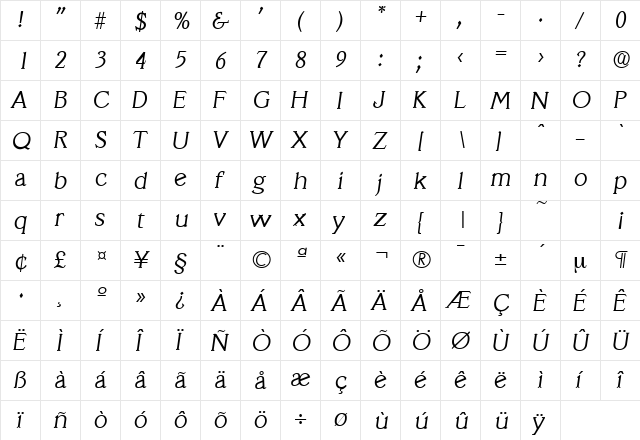
Veracruz-Serial-Light RegularItalic Font Preview
Design Context for Veracruz-Serial-Light Typeface
Veracruz-Serial-Light offers clean, dependable letterforms without strong stylistic allegiance, making it a practical choice for designers who need flexibility. The dynamic lean of this cut emphasises speed and emphasis in any layout. Its slender proportions lend an understated elegance to any composition.
Pro Tip: Use Veracruz-Serial-Light for emphasis, pull quotes, and subheadings where its slanted energy can add rhythm to the layout.